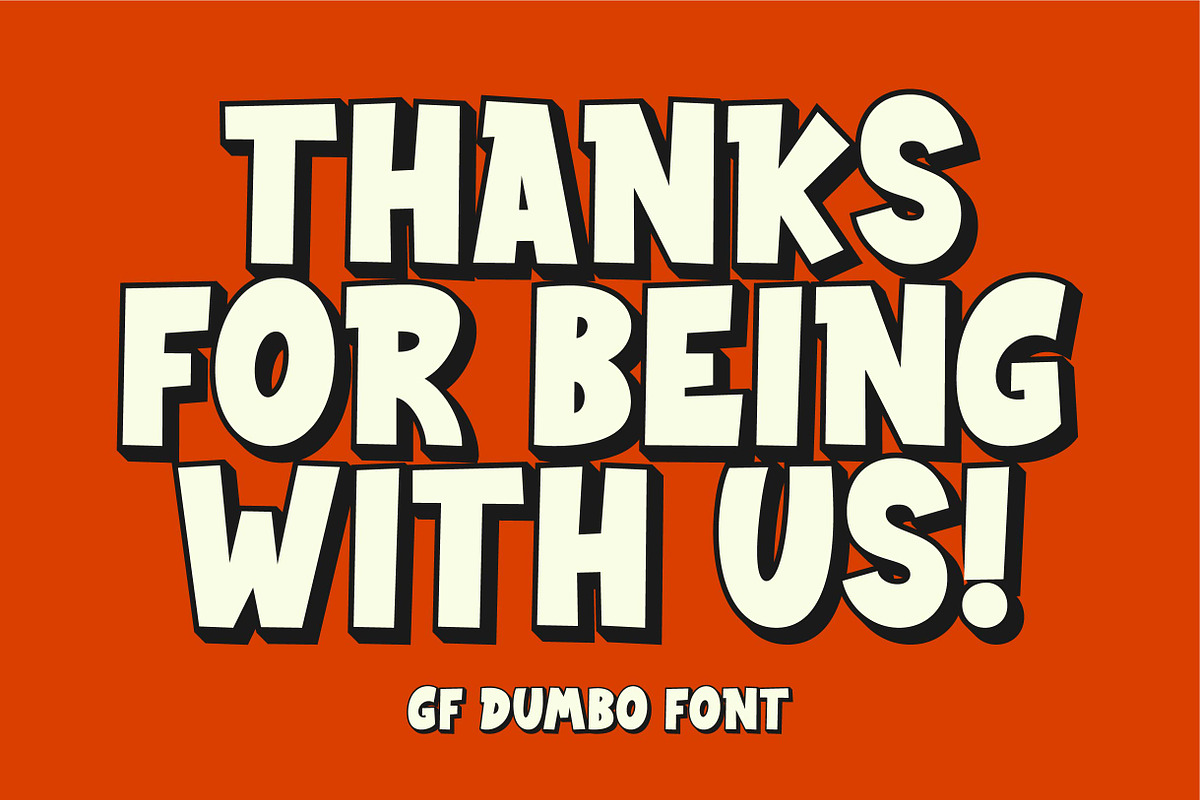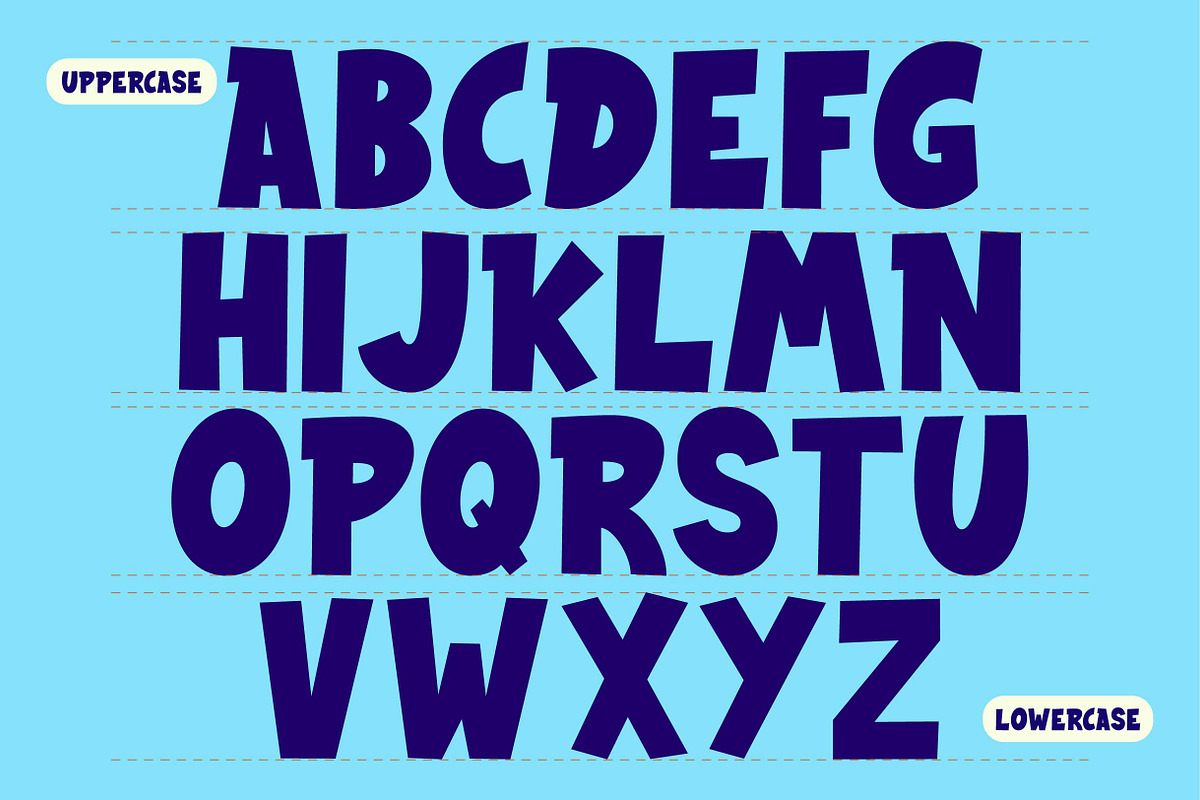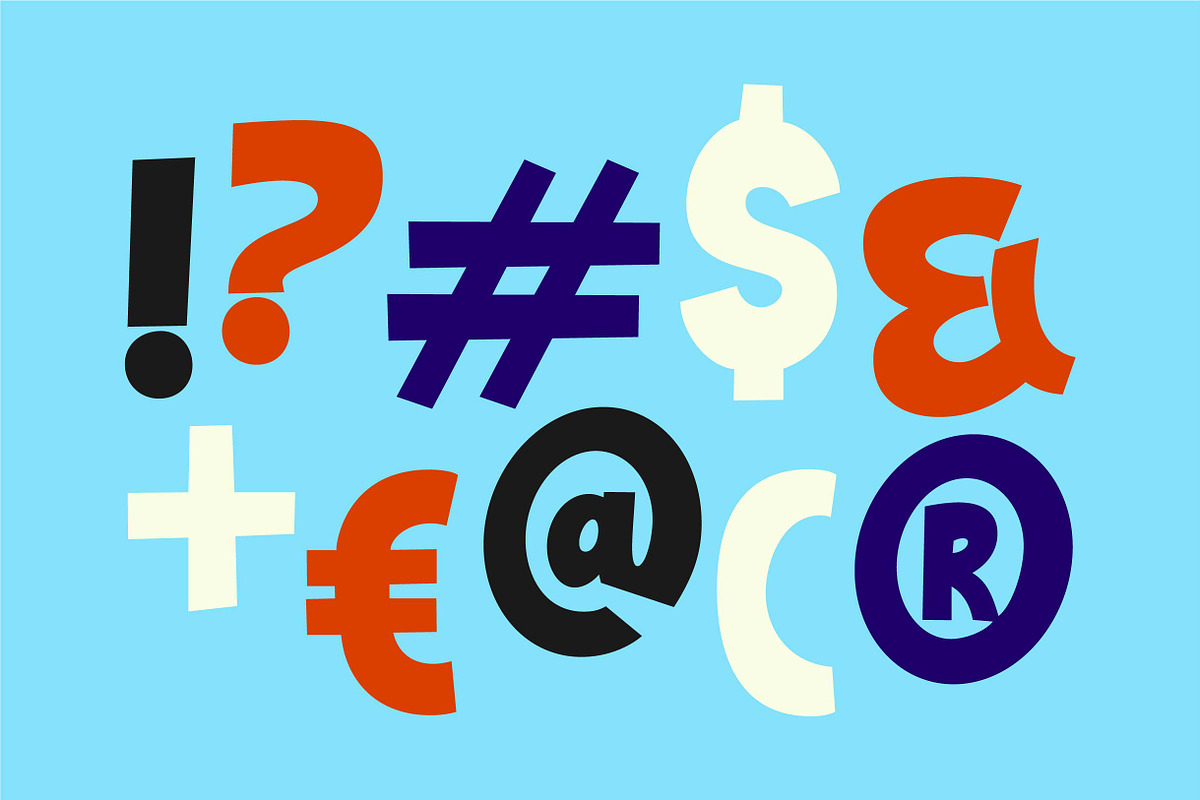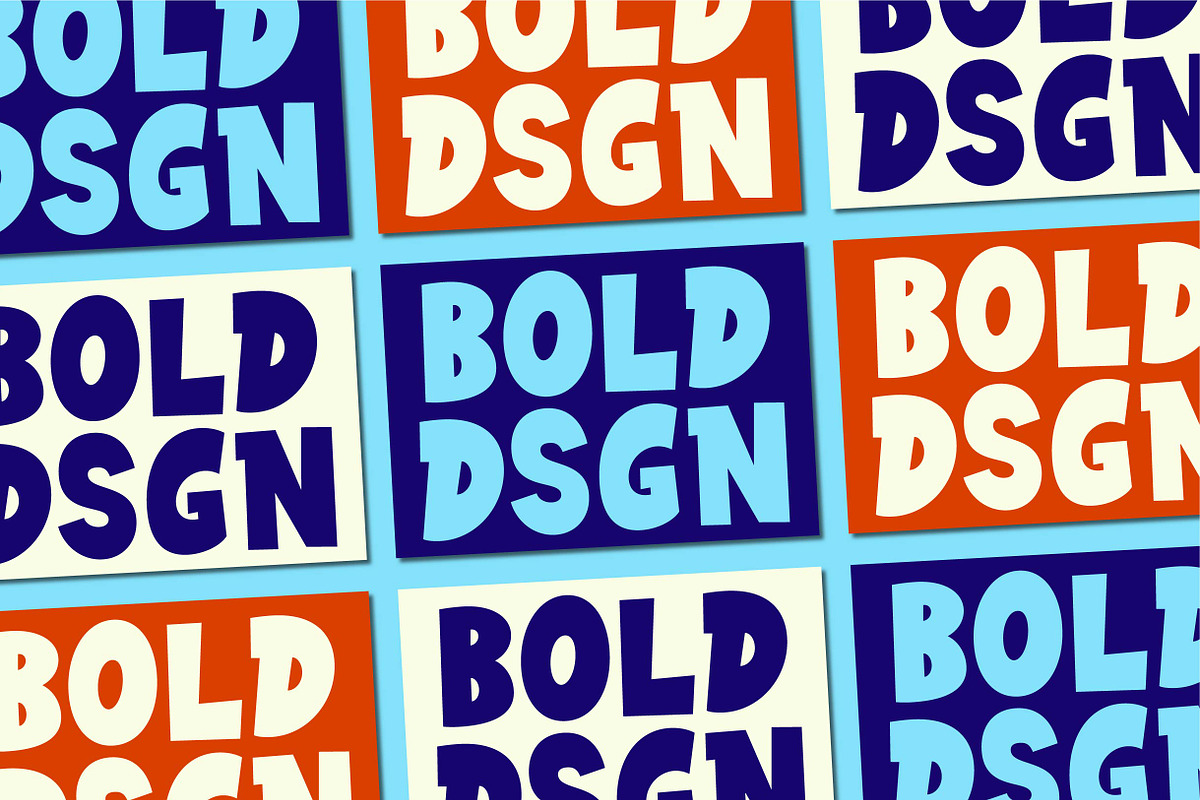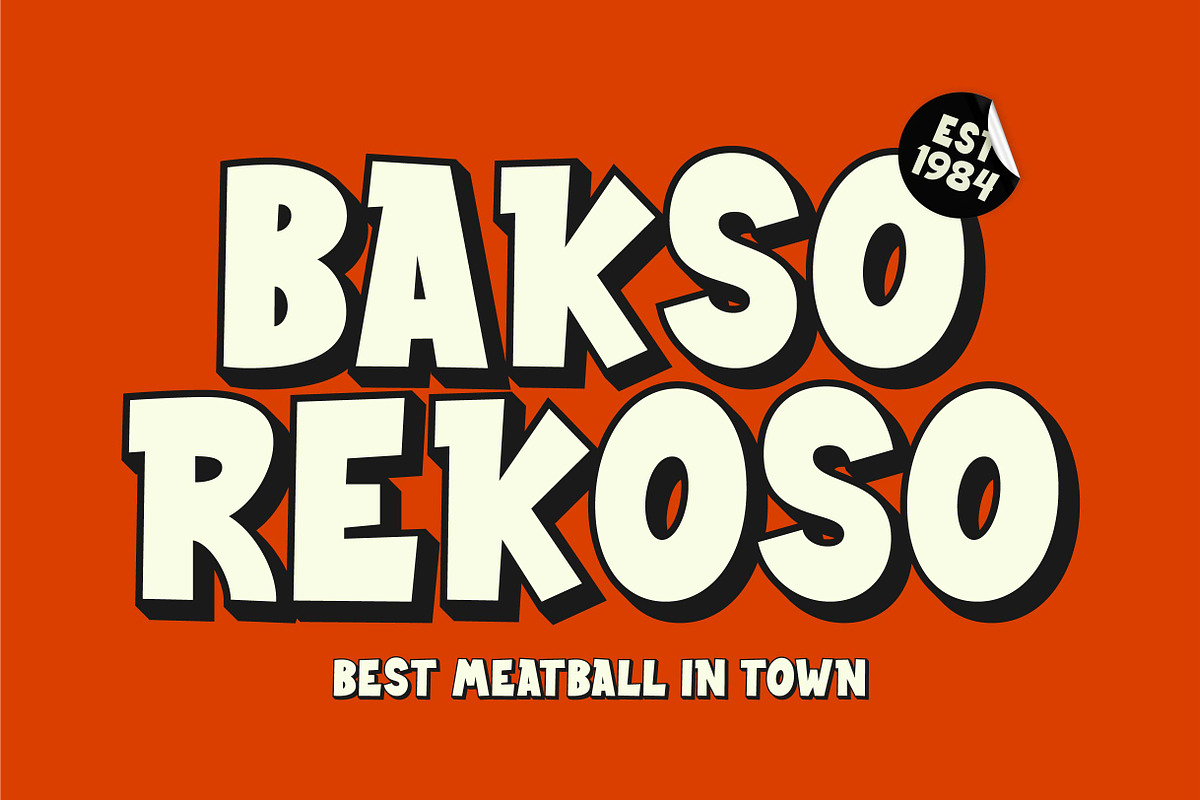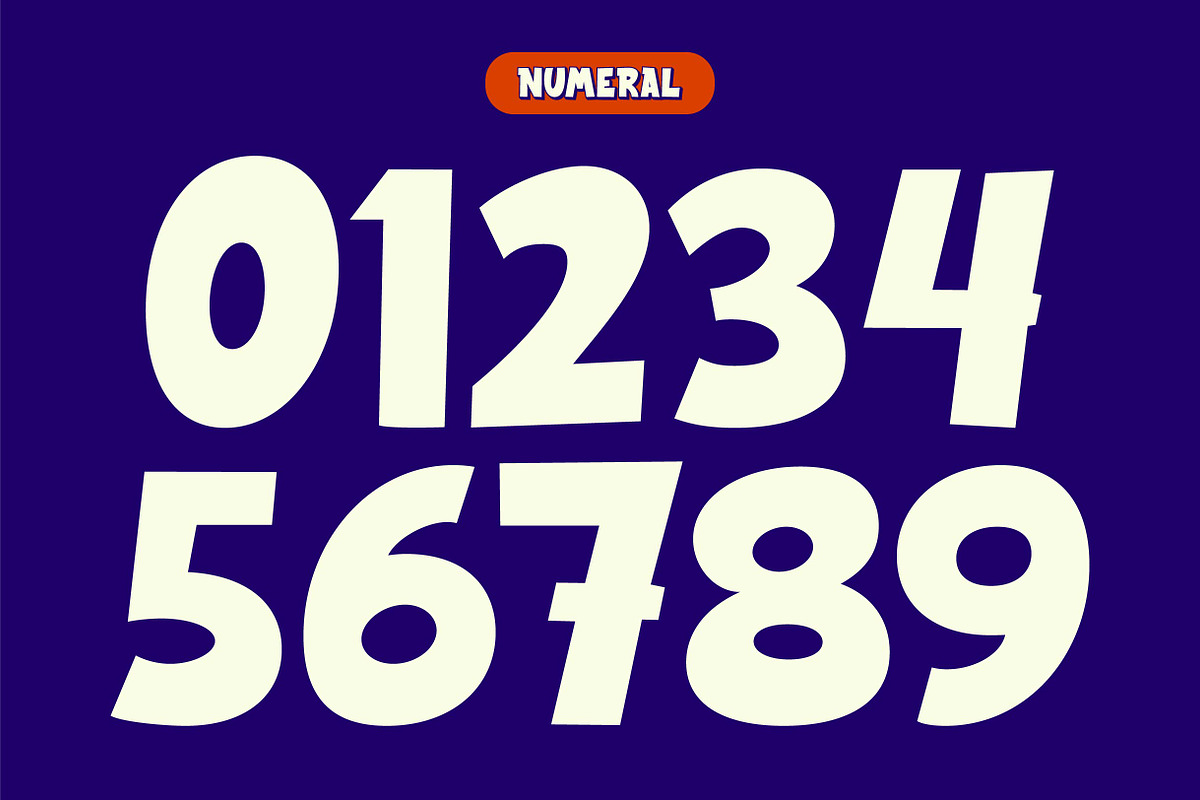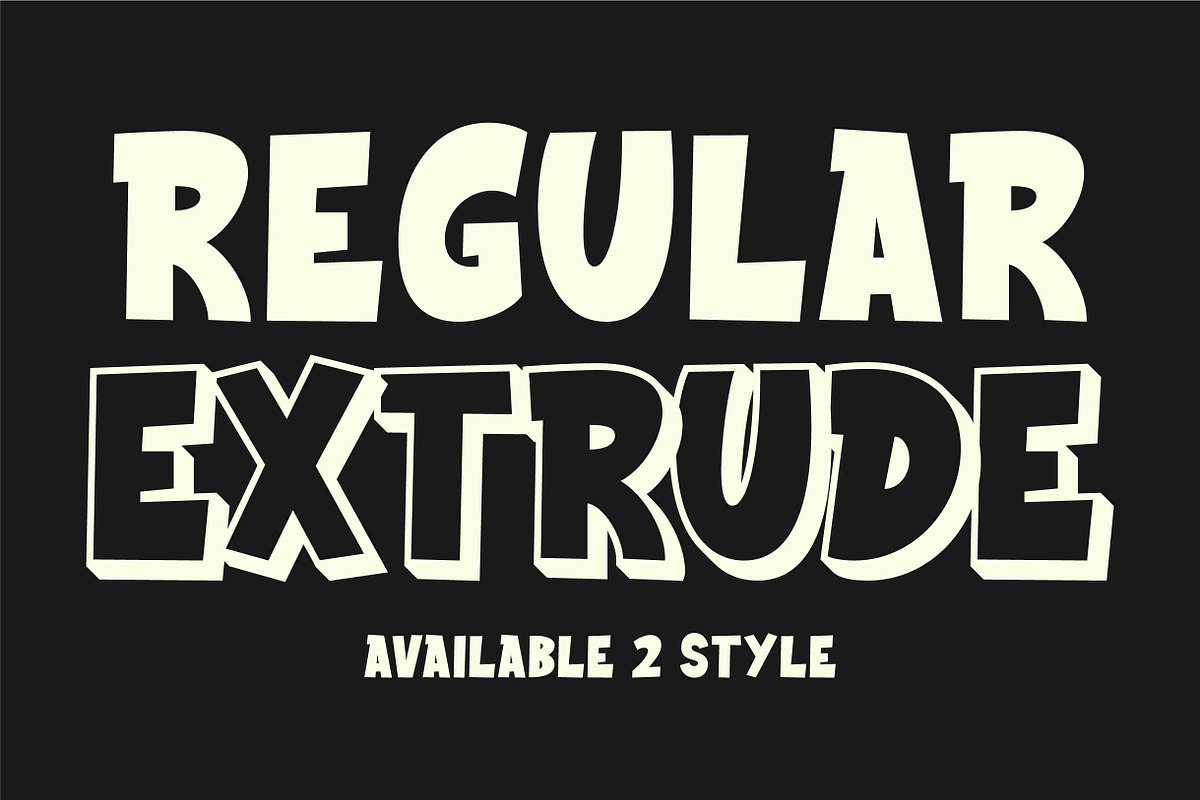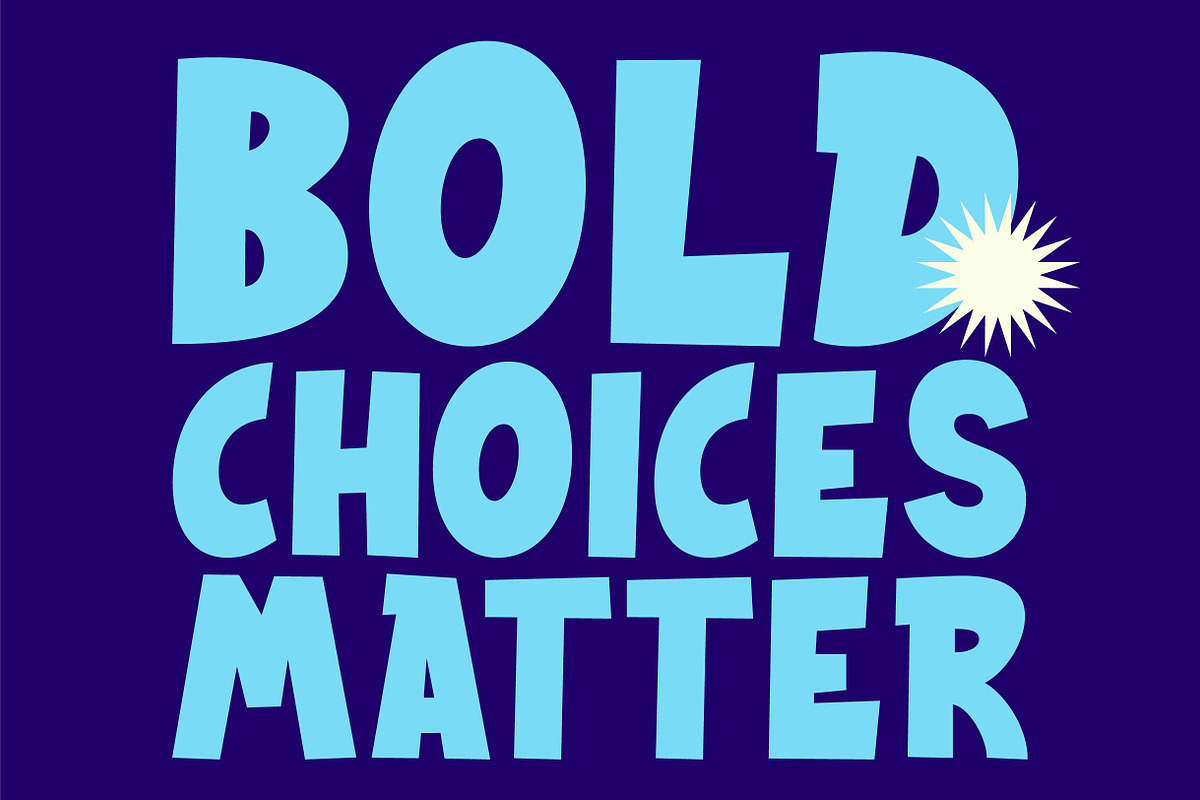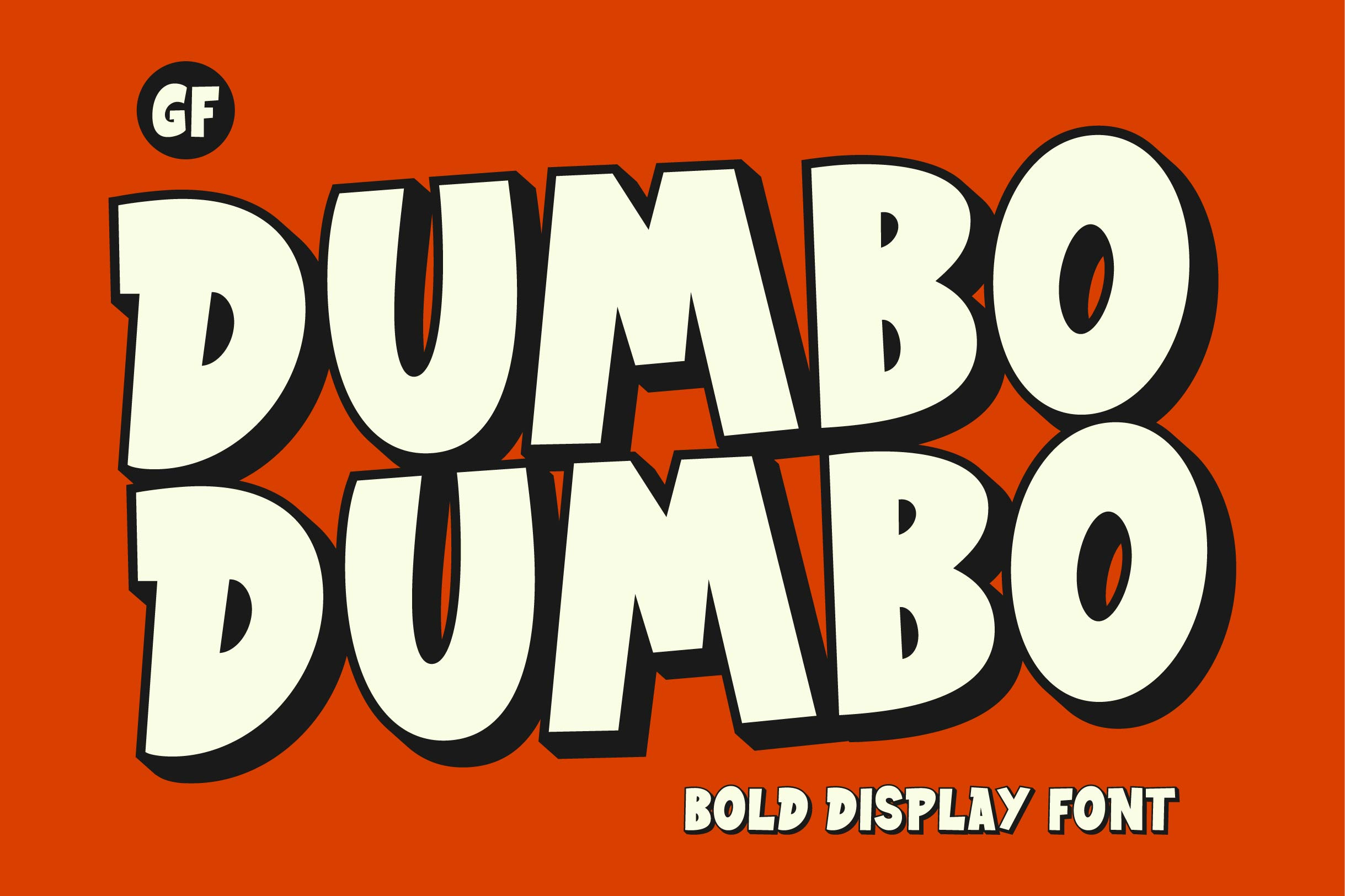
Dumbo - Bold Display Font
GF Dumbo is a bold display font with a fancy and comic aesthetic, offering two versions : regular and extrude.
The regular version brings a playful touch to any design, while the extrude version adds depth and dimension, creating an eye-catching effect.
This font is perfect for adding a fun and dynamic element to your projects, making it suitable for a wide range of creative applications.